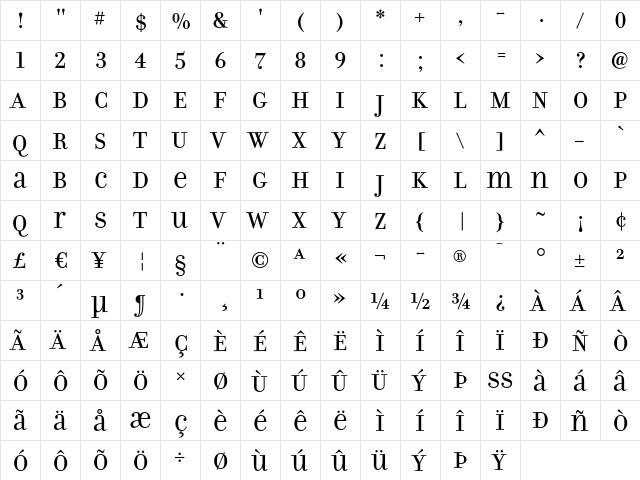
Filosofia Unicase OT Regular
| Foundry | (C) Emigre Inc., Designed by Zuzana Licko |
| Designer | Zuzana Licko |
Design Context for Filosofia Unicase OT Typeface
Filosofia Unicase OT offers clean, dependable letterforms without strong stylistic allegiance, making it a practical choice for designers who need flexibility.